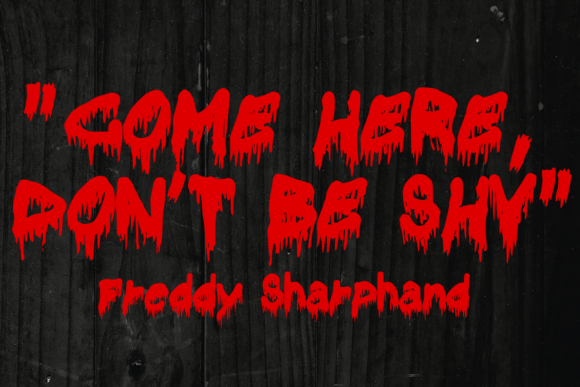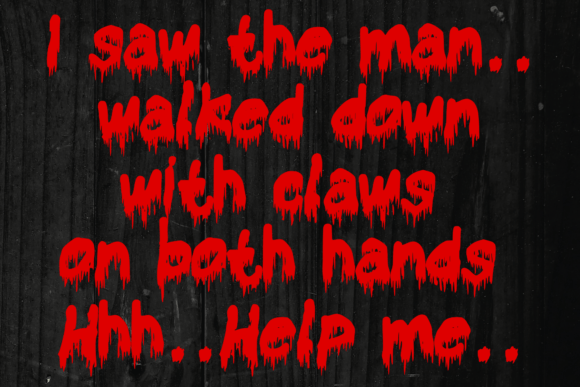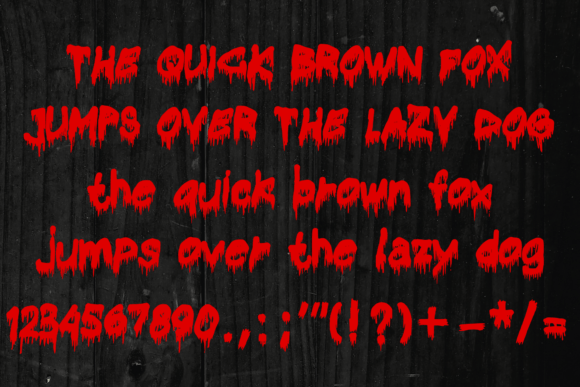
Introduction to Bloody Horror 2.0 Font
Bloody Horror 2.
0 is a very cool ink-made handwritten font and now comes with new version which include English, French, German, Italian, and Spanish It will be perfect for your horror and Halloween themed needs.
Why Choose Bloody Horror 2.0 Font?
Bloody Horror 2.0 Font offers exceptional quality and versatility, making it a valuable addition to your design toolkit. Whether you’re creating for personal projects or commercial use, Bloody Horror 2.0 Font delivers professional results.